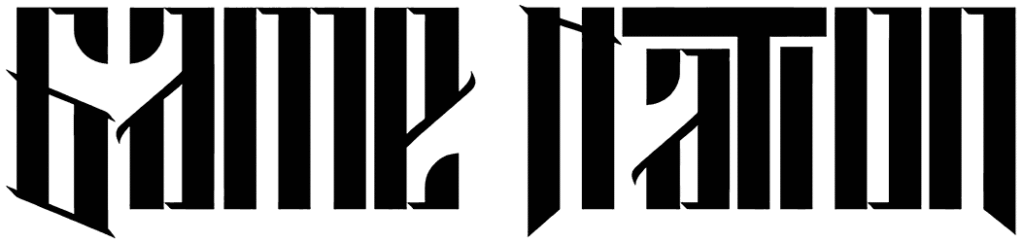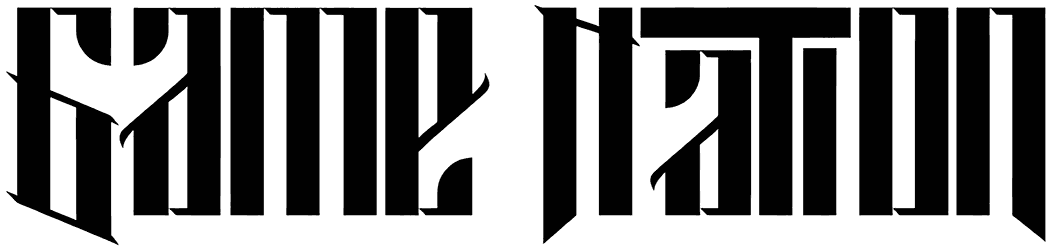
Game Nation Font
When you are working on a unique design that needs a royal and strong mood, a gothic font like the present offer would serve you well. The characters of the Game Nation font are tall, condensed, and bold, but consider that it doesn’t support numbers and punctuation marks. Let’s use this Renaissance font for your creative design of tattoos, or anything else, and amaze your followers.